Why can we generate video in 2025 but not real fonts? So I built YoFont
2025:
AI creates cinematic video, music, 3D worlds, digital humans, voice synthesis.
But fonts?
You ask for TTF/OTF, and you get an image. 😐
Not a file.
Not a font.
Just a picture of letters.
And I'm like:
“Are you kidding me?”
So I built YoFont.
What YoFont can do right now 🚀
“Make thicker”, “Sharpen the endings”, “Add ears”, “Soften corners”Generate a font based on a reference
Upload an image of how the glyphs look → YoFont creates a new font in a similar style with ultra-similar glyphs, but not a copy —
new vectors, new kerning, new structure.
Glyphs, proportions, kerning, contours — everything is rebuilt from scratch, so the result is a new font, inspired by the reference.
Are there flaws? Of course. 😎
complex ligatures can be stubborn
rare generations might need manual review
automatic kerning sometimes needs tuning for specific design requirements
But let's be honest:
It already beats 99% of what exists on the market.
Example — let’s create a floral font 🌸
You write a simple prompt:
A font where each letter resembles a flower, minimalist style, one line drawing, ultra thin
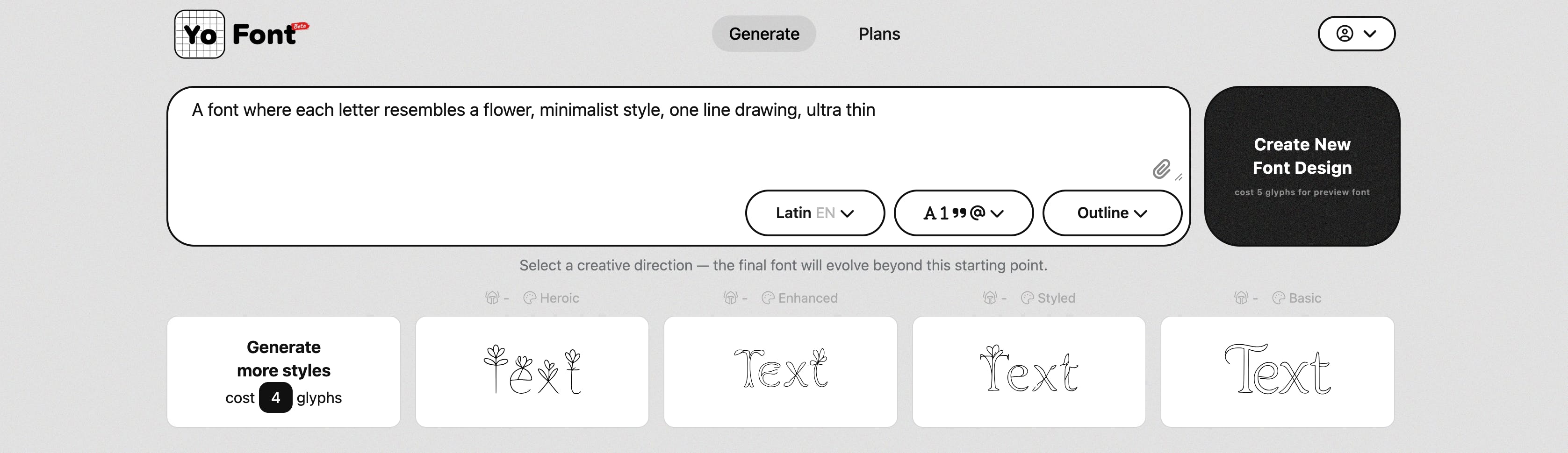
Click Generate → you get:
✅ Vector glyphs
Then you say:
“Add small branches”
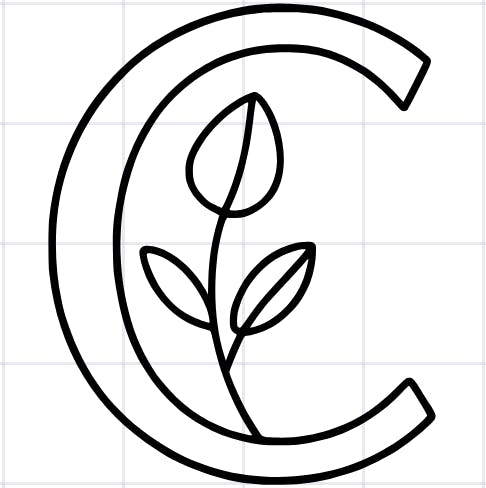
“Remove the leaves”
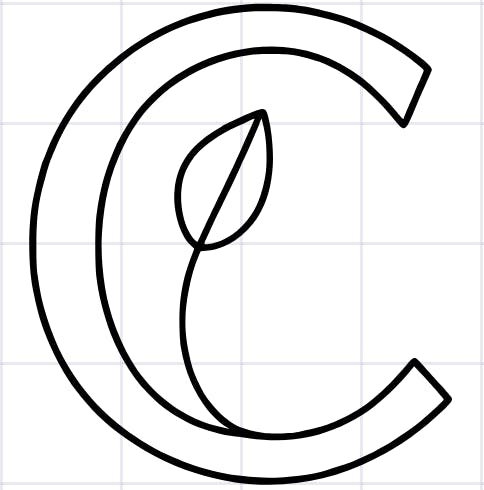
And the glyph transforms. Clean. No pain.
How to write a correct prompt (cheatsheet) ✍️
[mood] + [letter form] + [stroke thickness] + [details] + [proportions] + [usage]
Examples:
✅ Round floral solid font, thick fill, petal curves, tiny leaves at terminals, medium width, readable at small sizes
✅ Cute flower font, bold strokes, soft petals instead of corners, optimized for video titles
❌ Make a beautiful font — bro, YoFont is not a mind reader
Style-by-reference example — The Godfather movie poster 🎬
You look at the legendary poster and think:
“I want a font with this vibe — strict, cinematic, dramatic serif tension.”
What you do:
1. Upload the reference (the poster or the lettering)
2. Write a prompt ↓
"Cinematic serif font inspired by classic mafia-movie posters"
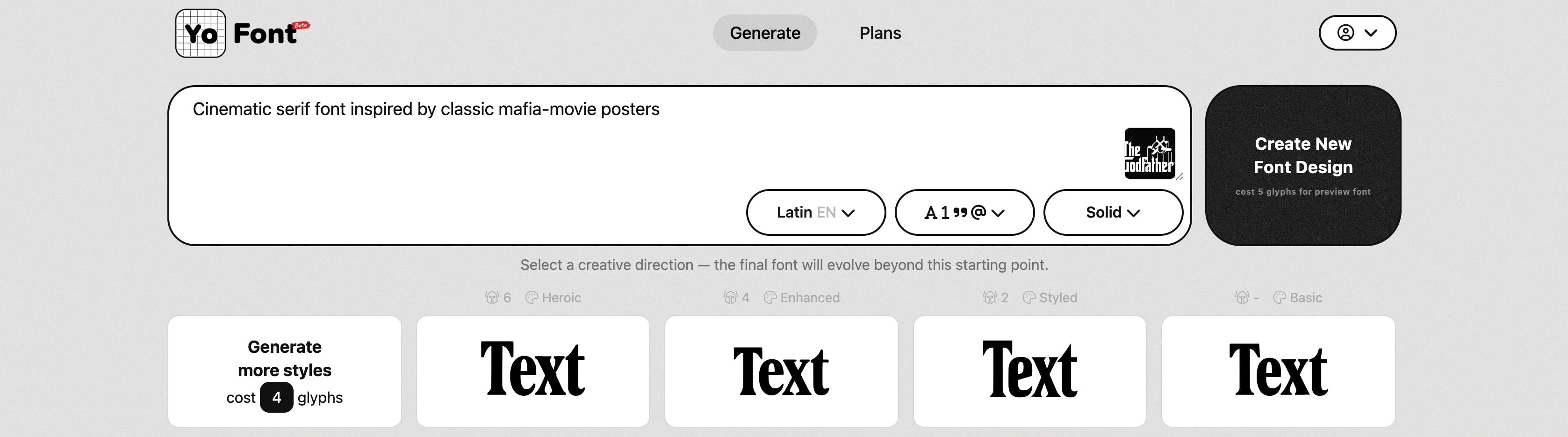
3. YoFont creates a new font where:
✅ the Godfather vibe is recognizable
✅ but every letter is new
✅ curves and structure are rebuilt from scratch
✅ kerning and contours are original
✅ you can use it in projects without feeling like it's stolen
4. You can fine-tune instantly:
“Sharpen the serifs, make letters narrower, increase stroke contrast”
or
“Soften serifs, add more spacing, calmer look”
It’s not a copy → it’s creating a new font based on the reference’s visual DNA.
Rule I follow with YoFont:
You don’t get a copy of someone else’s font.
You get a new font with similar character.
My job is to give you a tool, not a legal problem.